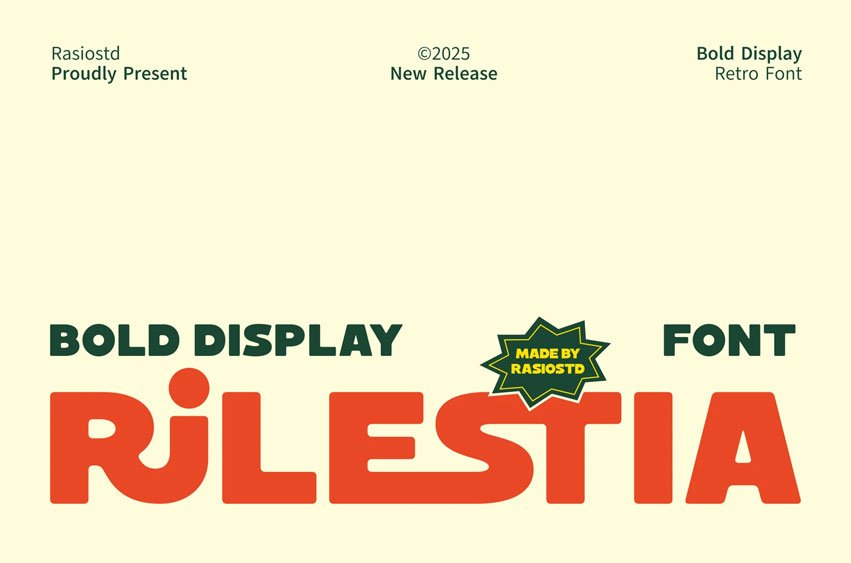
Rilestia Font is a bold, retro-inspired display font that combines playful geometry with a confident personality. Its thick letterforms and soft corners deliver a vintage charm while maintaining a clean modern appeal. With unique alternates and rare ligatures, Rilestia adds a dynamic, handcrafted touch that stands out in both print and digital compositions.
Relevance and Use Cases are perfect for retro branding, event posters, packaging design, creative advertising, editorial layouts, social media visuals, and product titles that need a bold, funky personality.
- Stylistic Alternates & Rare Ligatures
Bring back the retro spirit with Rilestia — a bold display font that merges vintage energy and modern style for standout designs.
Rilestia Font Preview